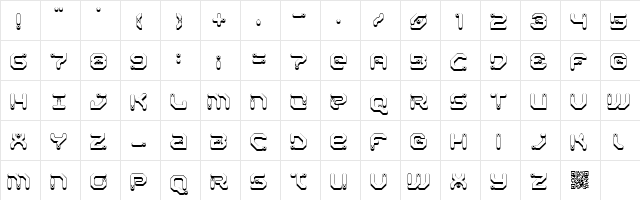
Xiaxide Shadow
Design Context for Xiaxide Typeface
Xiaxide brings ornamental detail and strong personality to headlines and identities, where visual impact matters more than quiet functionality.
Font Pairing: Pair with a clean neutral sans-serif for body copy to let Xiaxide's character lead without overwhelming the composition.
Pro Tip: Treat Xiaxide as the centrepiece of your typographic hierarchy. One strong heading set in a decorative face can carry an entire layout.